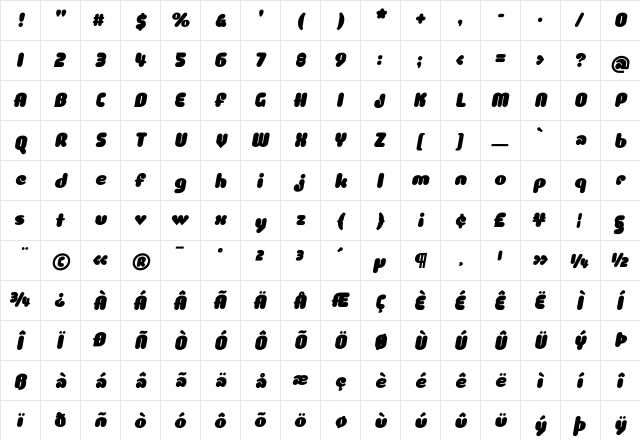
Luvbug Bold
Design Context for Luvbug Typeface
Luvbug takes a measured approach to typography — its balanced proportions and neutral character make it a reliable workhorse for both digital and print work. The heavy weight commands attention and anchors typographic hierarchies.